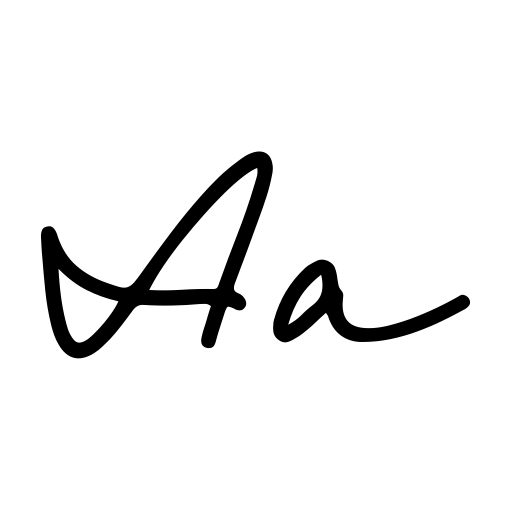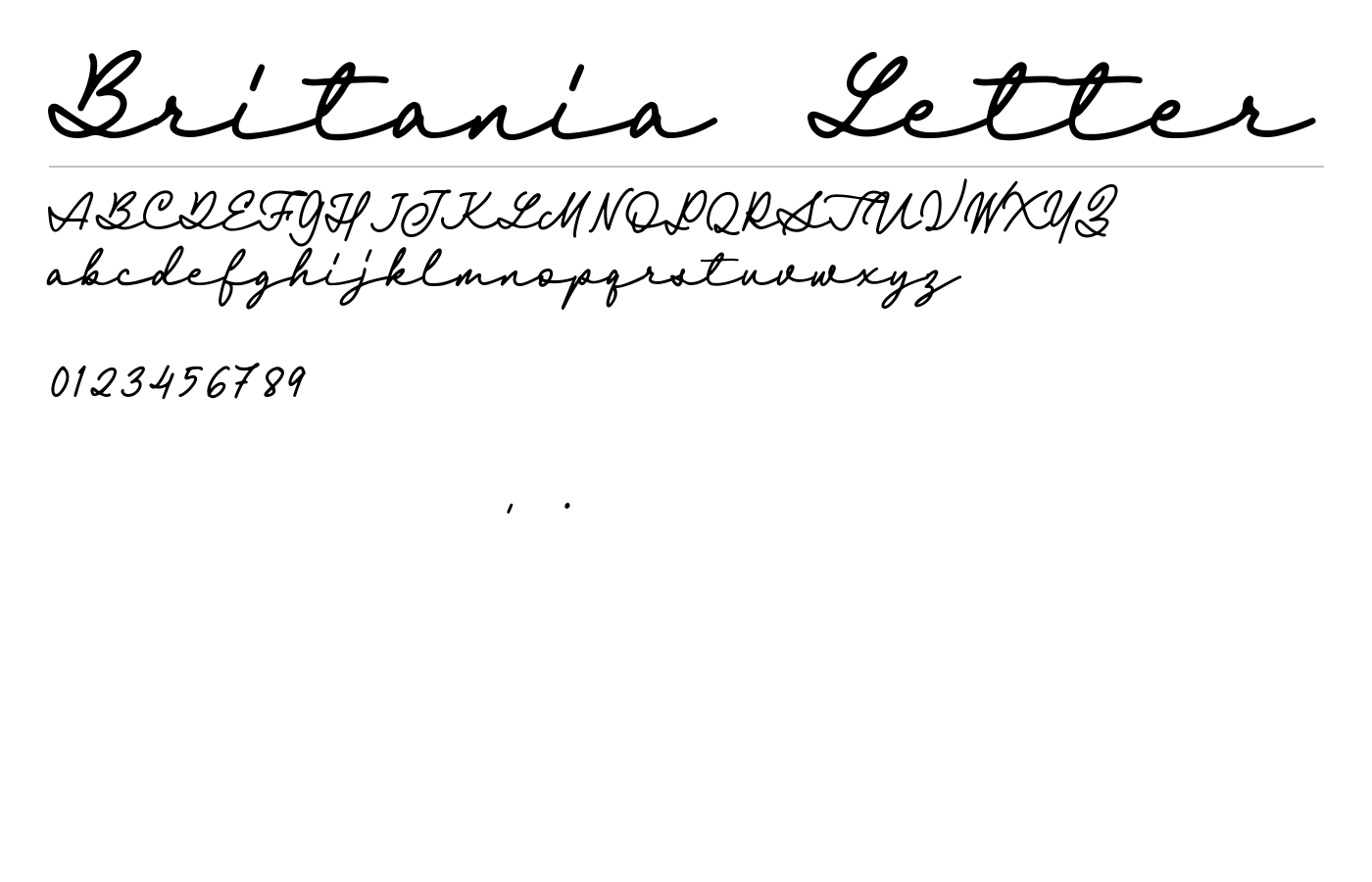
Britania Letter is a delicate, handwritten script font that conveys a personal and elegant feel through its smooth, flowing strokes and slightly irregular letterforms. It features a light weight with a natural, casual style, making it ideal for invitations, greeting cards, and branding that seeks a charming, approachable touch. This font works well in contexts that benefit from a warm, handcrafted look, adding personality and softness to design projects.
Britania Letter Font
About Britania Letter Font